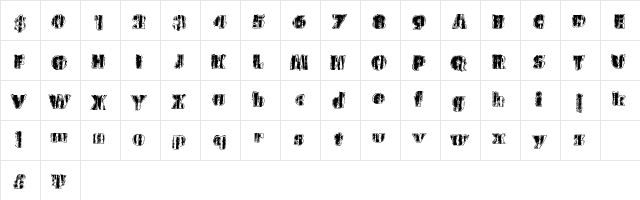
UrbanAnimal Regular
Design Context for UrbanAnimal Typeface
UrbanAnimal is a composed and adaptable typeface that performs quietly and consistently across a wide range of design contexts.